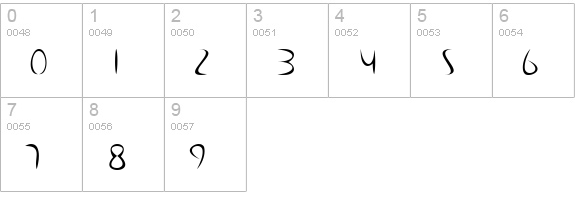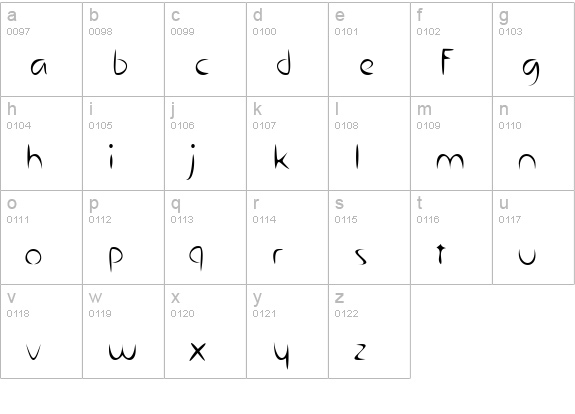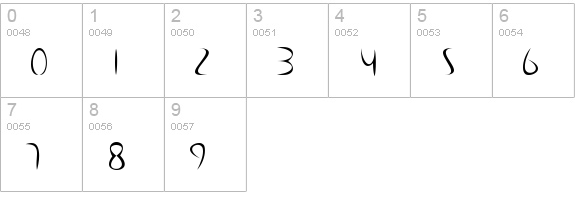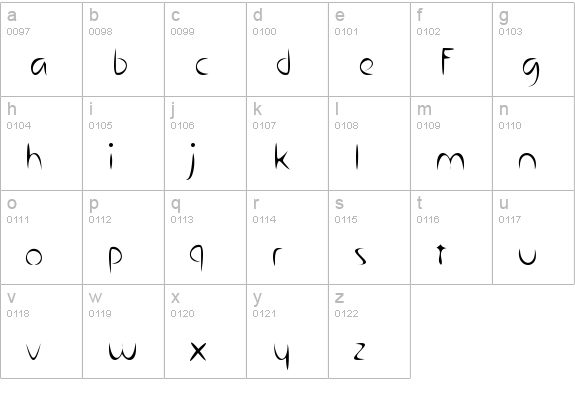
Minimalist Regular Font Details
Minimalist Regular is the standard, neutral variant in the Minimalist typeface family \xE2\x80\x94 well suited to general body text, paragraphs, and standard typographic work.
The Minimalist Regular font exudes a sleek and contemporary charm with its clean lines and minimalistic design. This versatile font is perfect for a wide range of projects, from branding to editorial design. Its simplicity allows for effortless readability while still making a strong visual impact. Best of all, the Minimalist Regular font is available for free download at FontsMarket.com. This means you can easily enhance your designs with this modern and stylish font without breaking the bank. Don't miss out on this fantastic opportunity to elevate your projects with the Minimalist Regular font today!